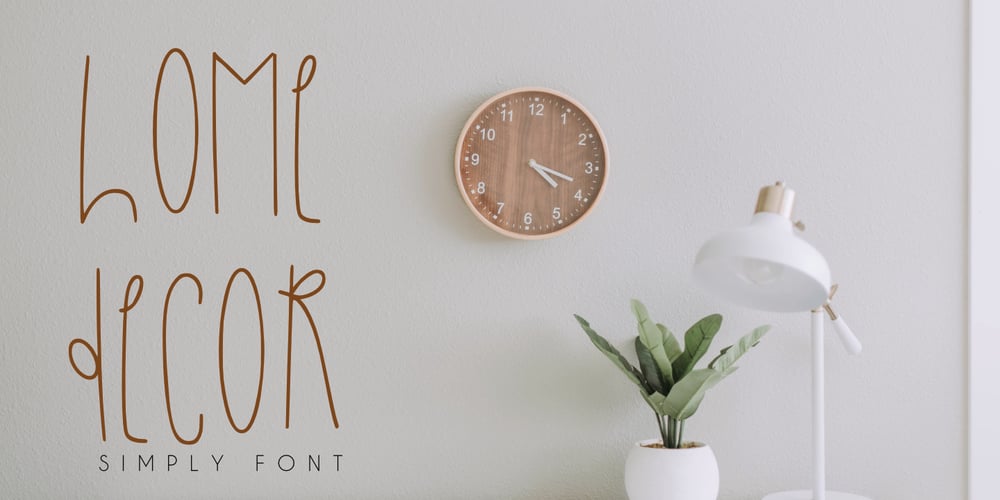
Home Decor Font Family was designed by Mariyana and published by Goodigital13. Home Decor contains 1 styles and family package options. great for any projects including : branding, logo, stationery, business card, signage, flyer, brochure etc. Almost all industries will be match for this typeface: comic, events, florist, gardening, makeup artist, travel, cartoon, musician etc